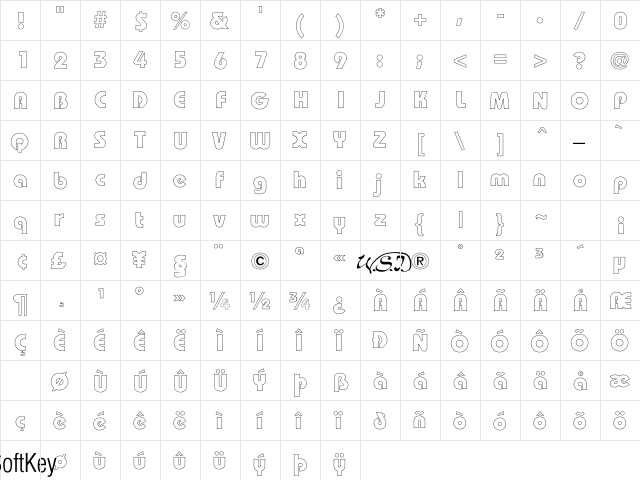
Bordeaux Black Hollow Regular
Design Context for Bordeaux Black Hollow Typeface
Bordeaux Black Hollow is a composed and adaptable typeface that performs quietly and consistently across a wide range of design contexts.